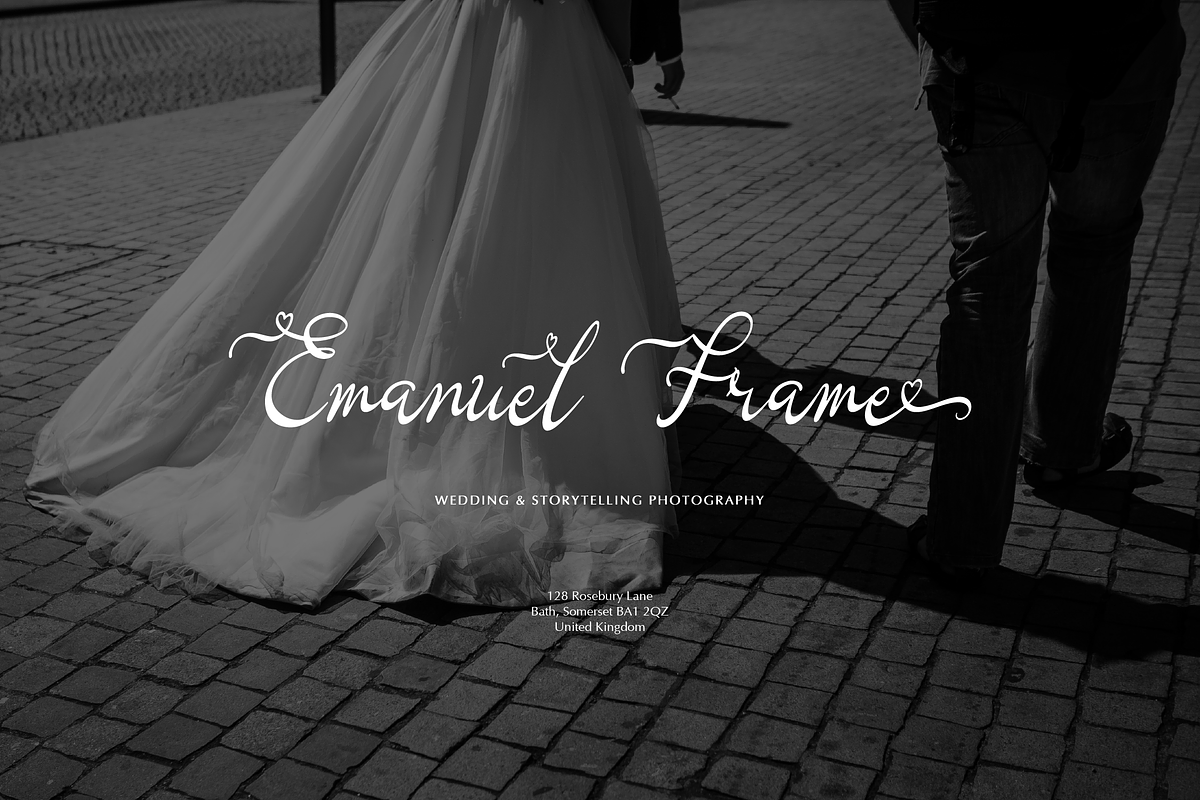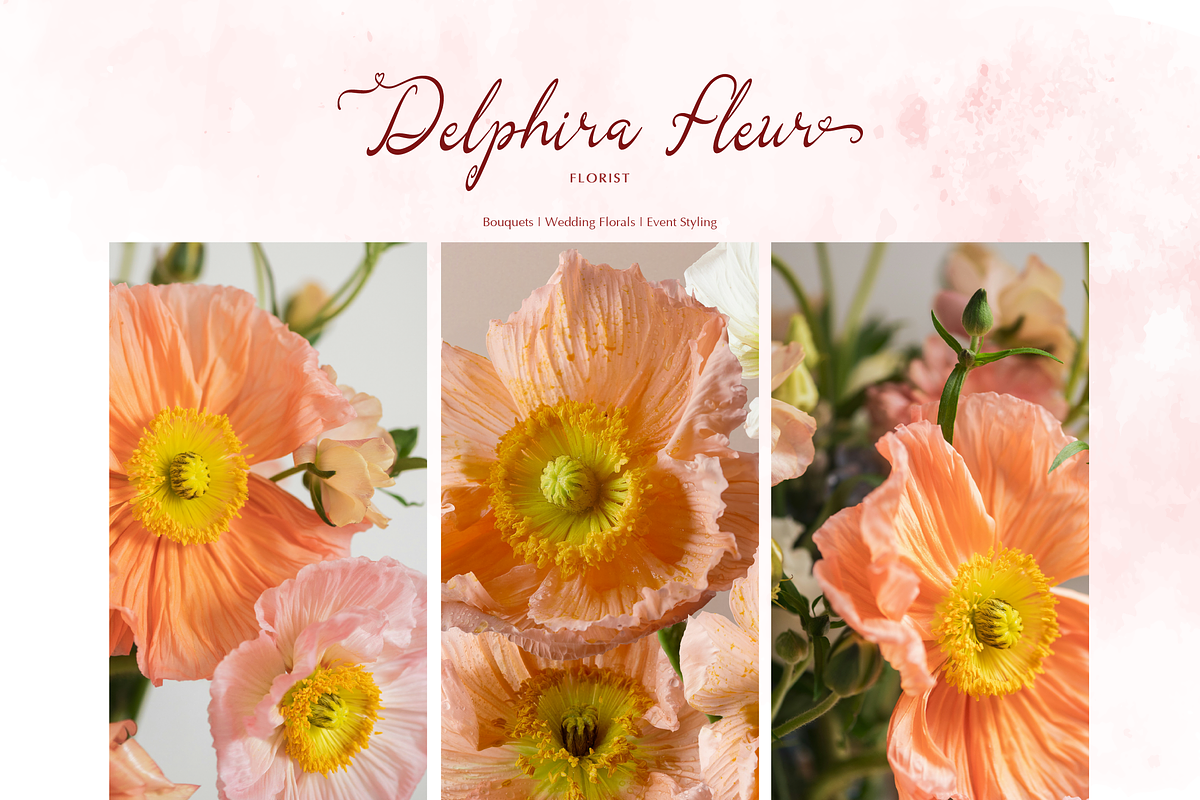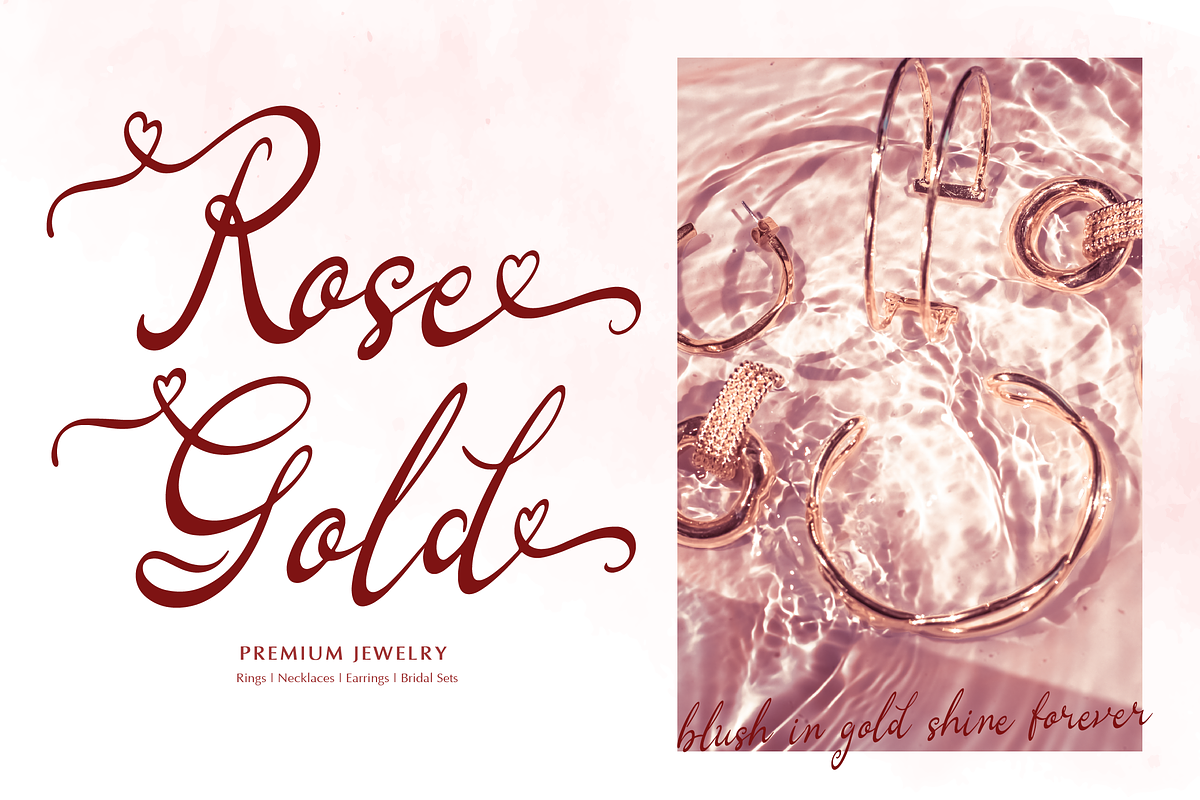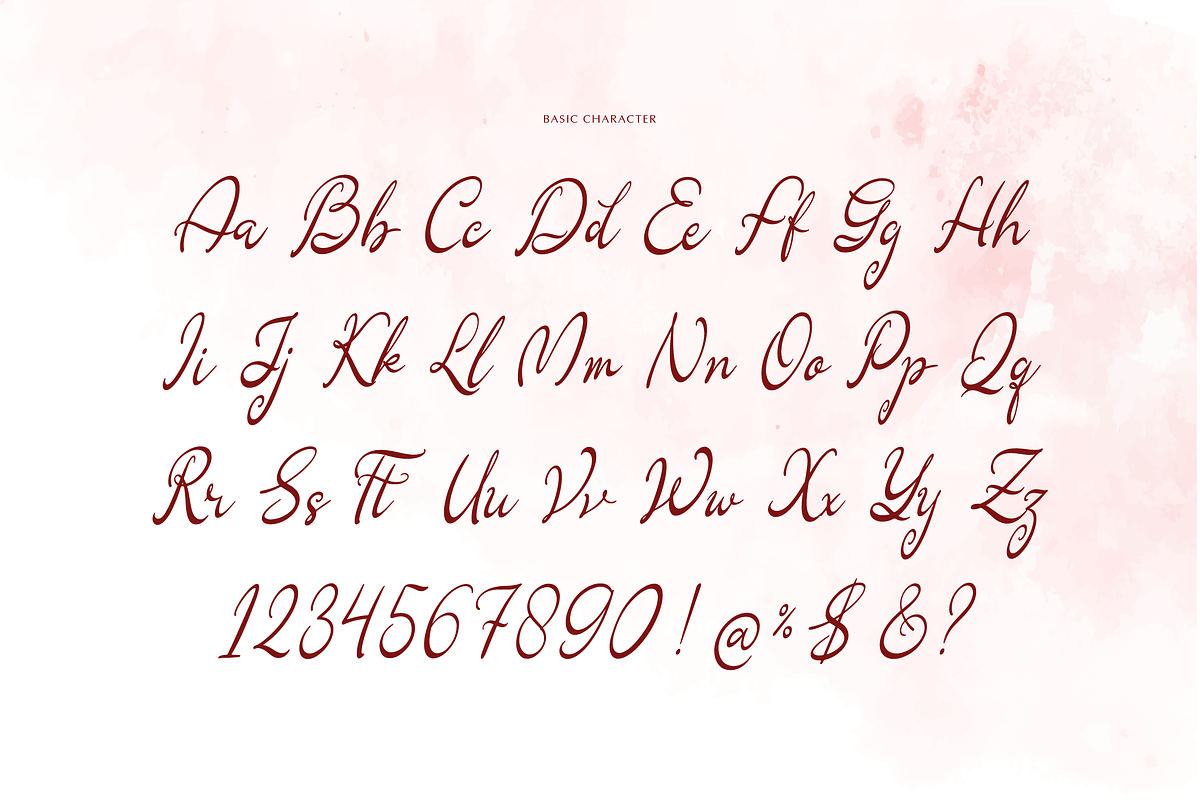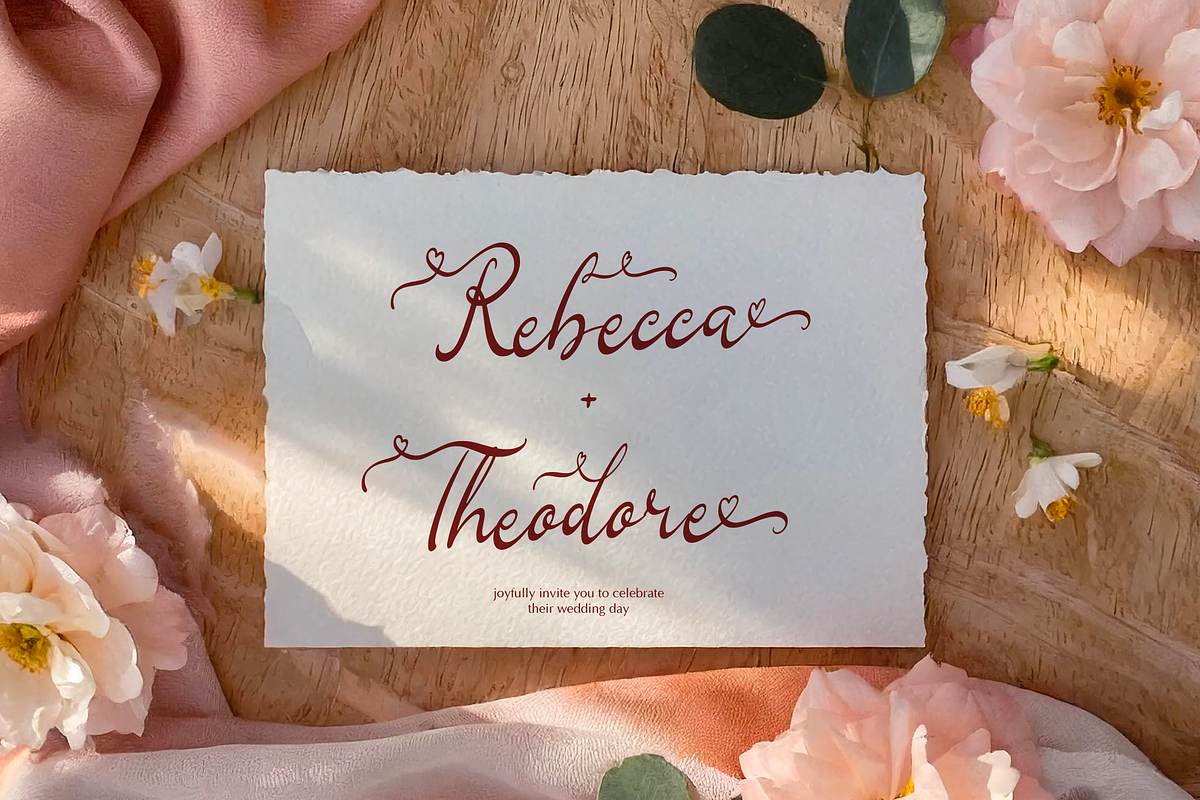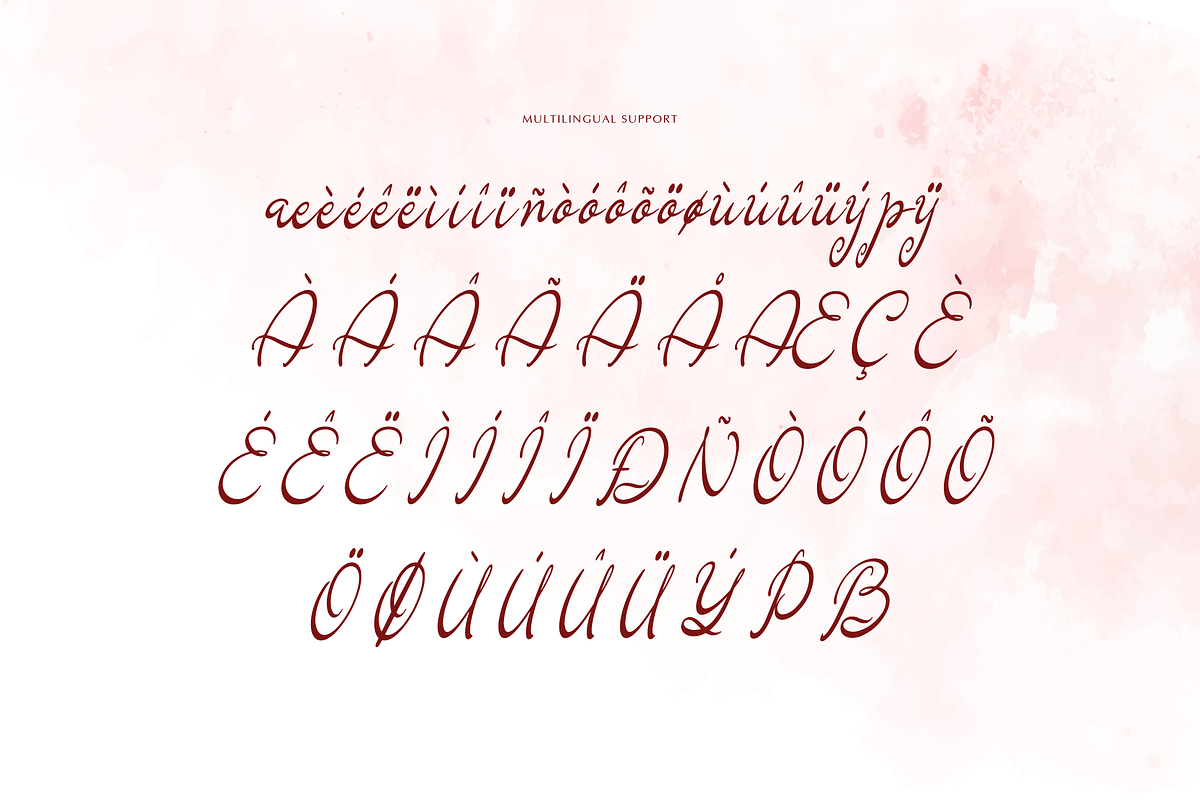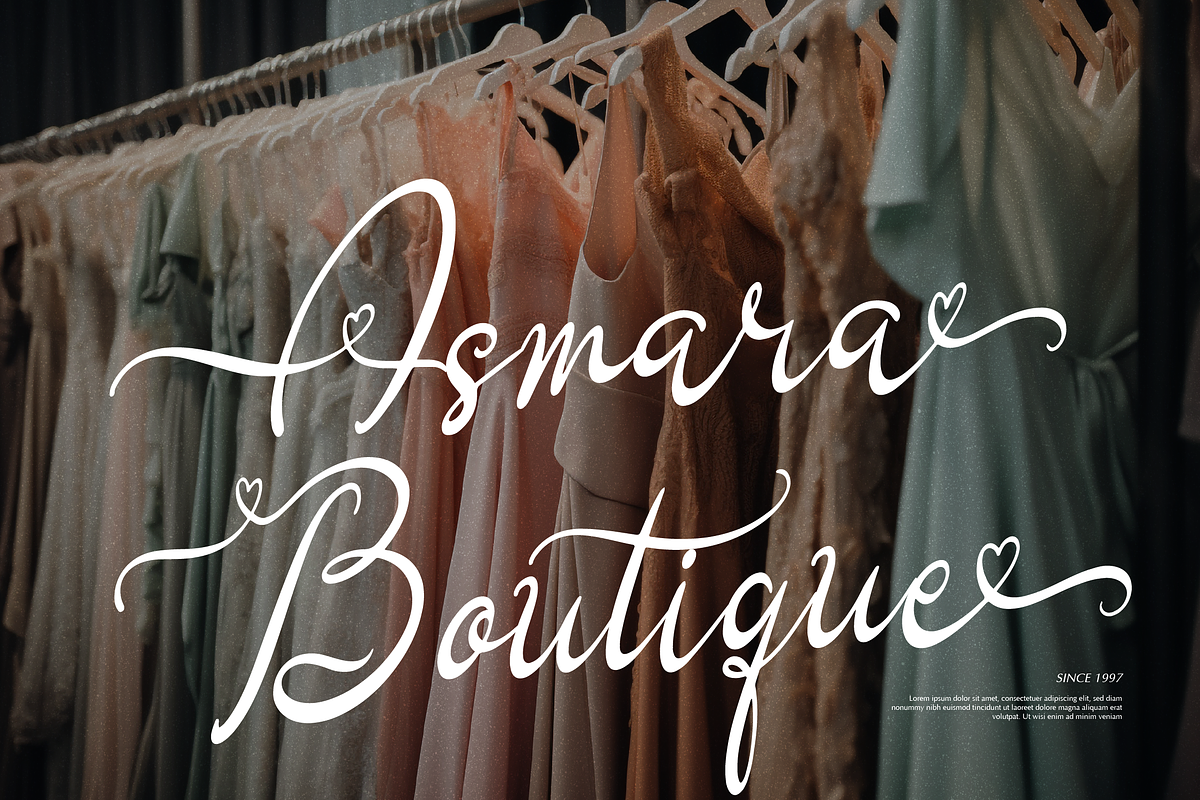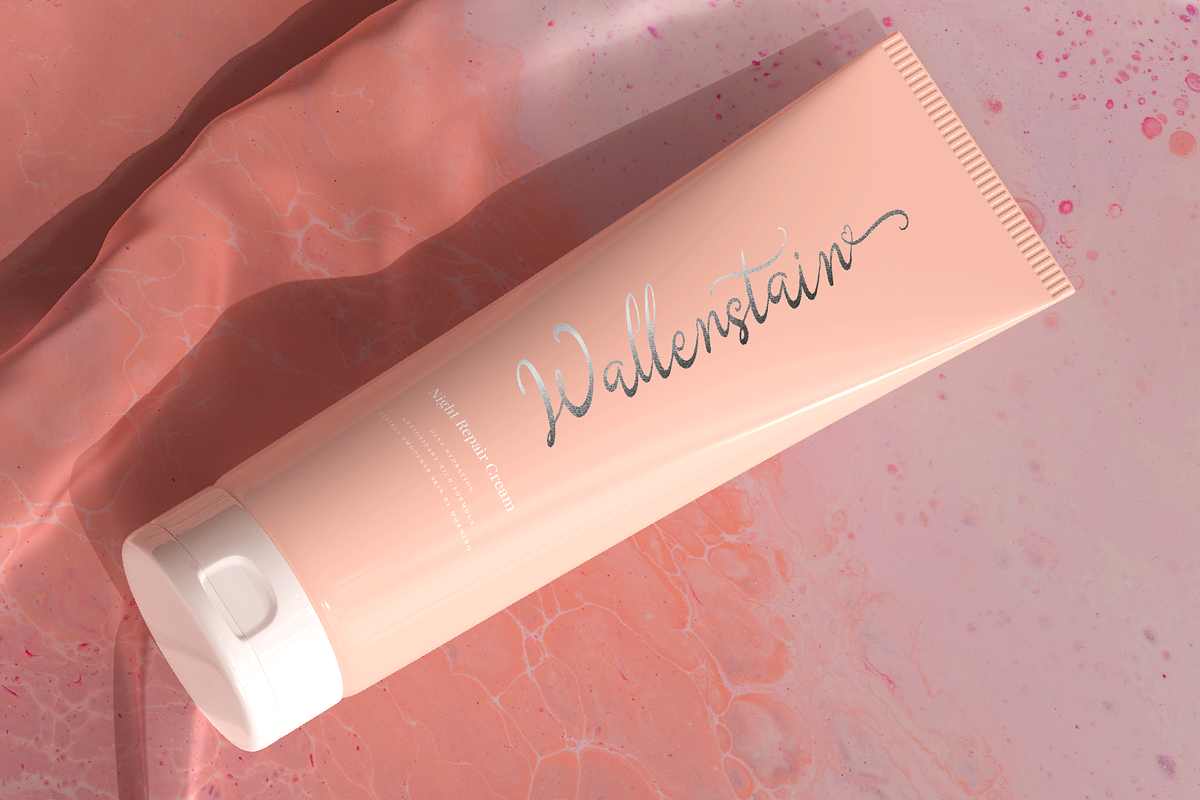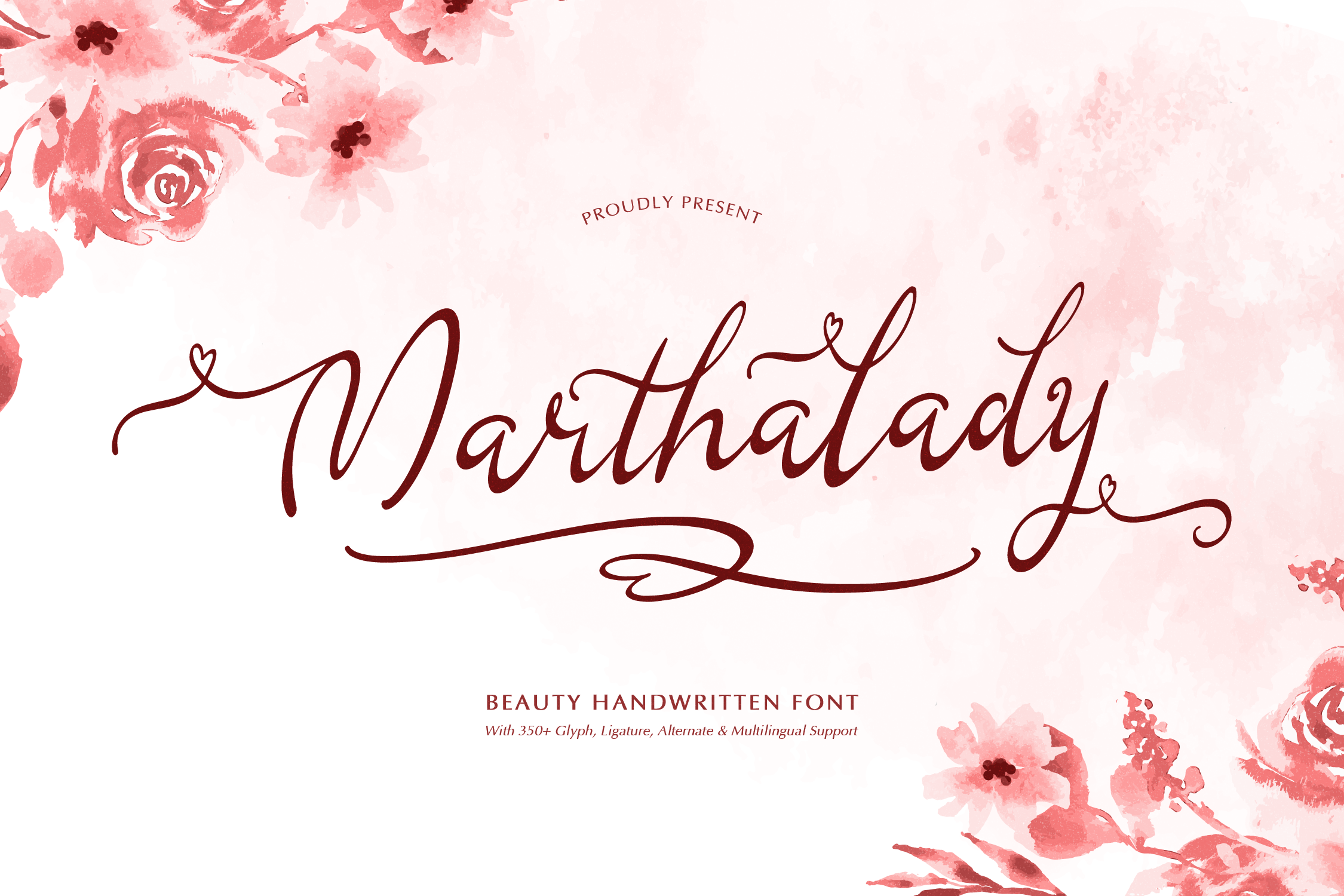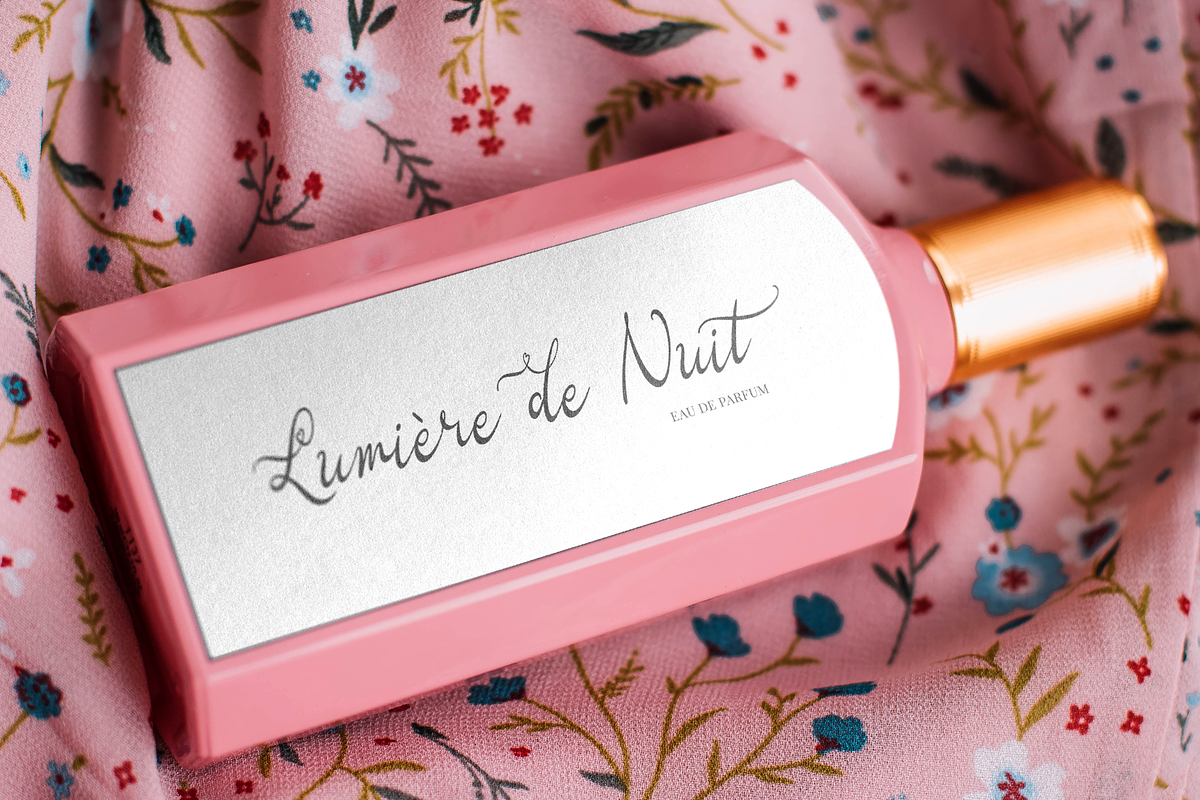
Marthalady | Beauty Handwritten Font
Marthalady | Beauty Handwritten Font, from Gracetypestudio, suitable for any projects such as: logos, branding projects, homeware designs, product packaging, mugs, quotes, posters, shopping bags, t-shirts, book covers, name card, invitation cards, greeting cards, label, photography, watermark, special events, and all your other lovely projects that need a Beauty Handwritten Font taste.